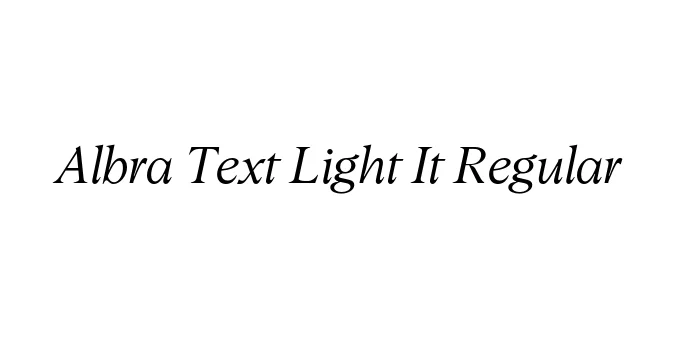
Albra Text Light It Regular
Designed by BumBumType
Albra Text Light It Regular is a sophisticated contemporary serif font designed by the BumBumType studio. Part of the expansive Albra collection, this specific variant focuses on high-legibility and aesthetic grace specifically tailored for long-form reading and smaller point sizes. It features a high x-height and open counters, blending the timeless elegance of classic book typography with the sharp, clean lines required for modern digital displays.
The Light Italic weight adds a delicate, rhythmic flow to the text, making it ideal for pull quotes, emphasis, and academic publishing. Unlike the more display-oriented versions of the Albra family, Albra Text avoids extreme contrast to ensure the strokes remain visible and stable under various printing conditions. It is a versatile choice for designers seeking a balance between a high-fashion editorial look and functional utility.
Albra Text Light It Regular Best Uses
Perfect for magazines, journals, and long-form articles requiring high readability.
Ideal for high-end luxury brands looking for a timeless and elegant identity.
Optimized for digital screens, making it a great choice for blogs and online publications.
Suitable for professional reports and brochures where clarity and tone are essential.